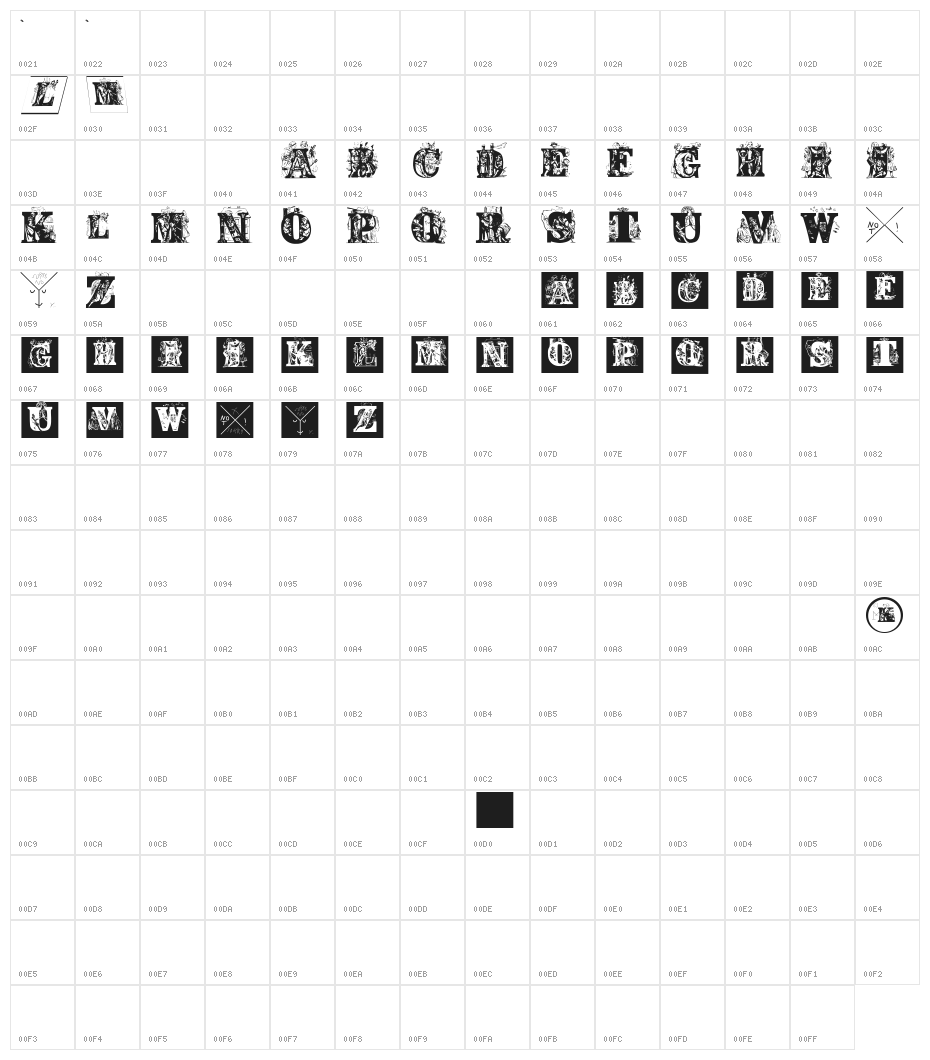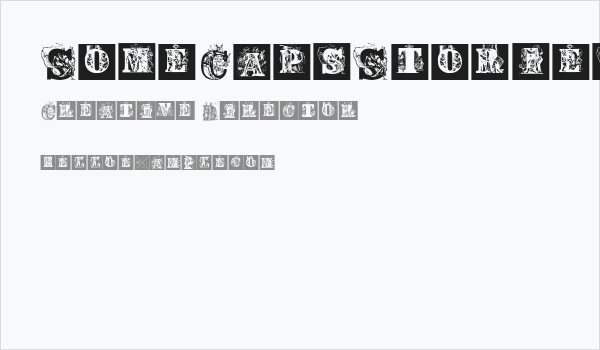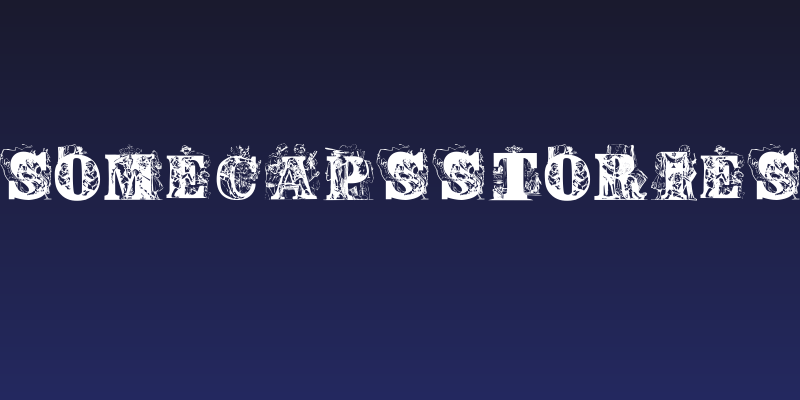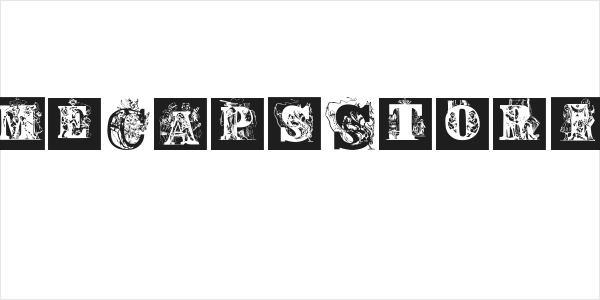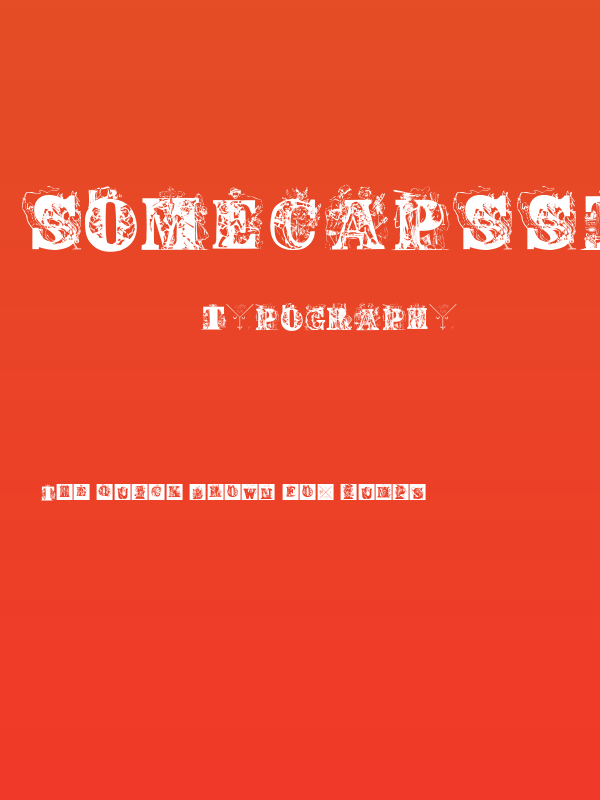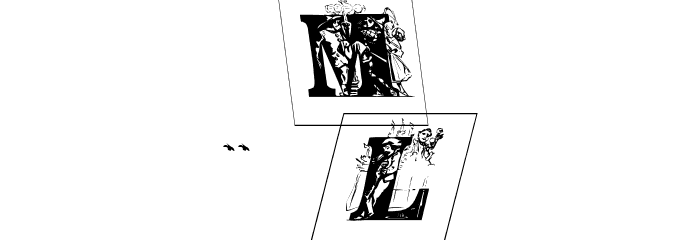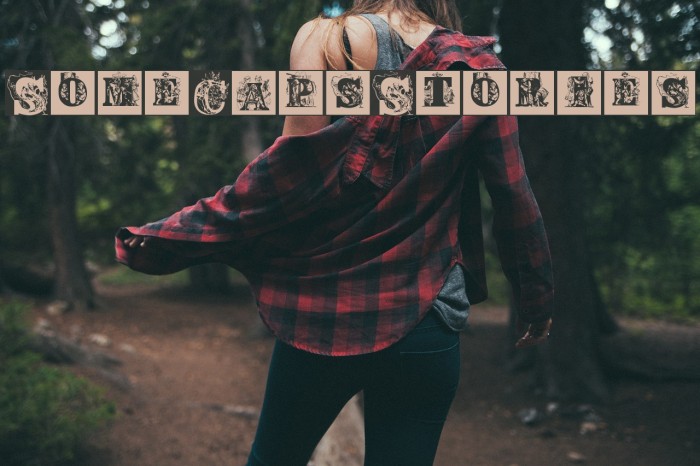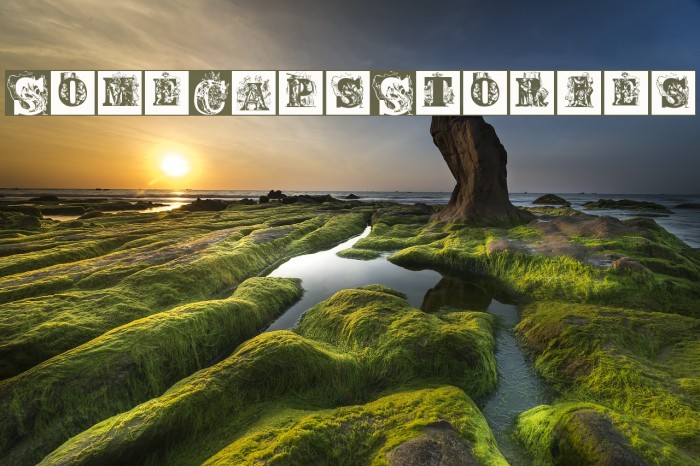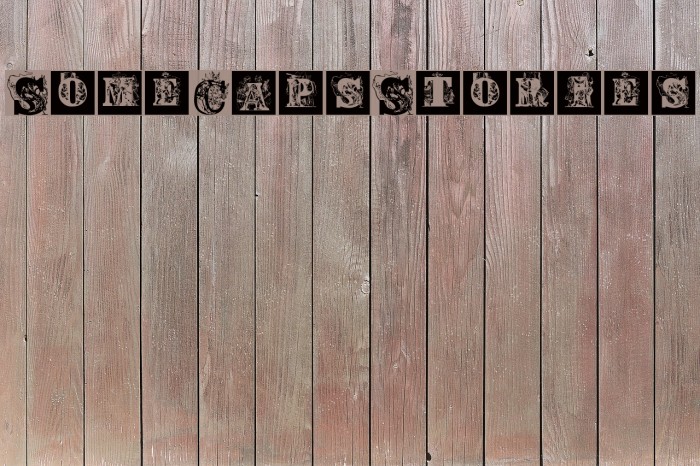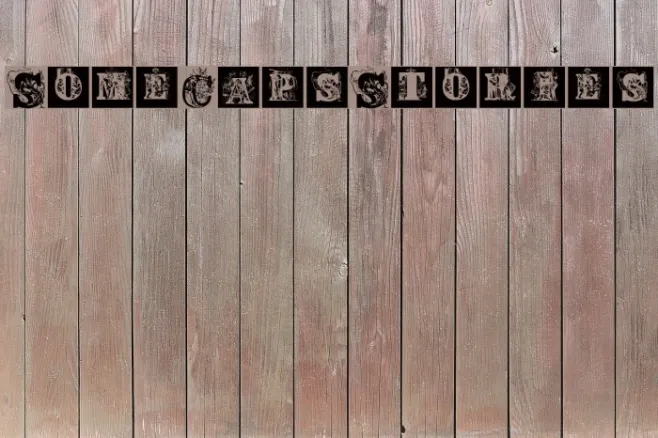
SomeCapsStories Font
SomeCapsStories Description
This font is a highly decorative and artistic typeface, featuring intricate illustrations within each letter. The uppercase letters are adorned with detailed scenes and figures, giving each character a unique and ornate appearance. The style is reminiscent of vintage storybook illustrations, with a strong emphasis on visual storytelling. The letters are bold and stand out due to their complex designs, making them suitable for eye-catching displays. The font does not include lowercase letters or numbers, focusing solely on uppercase characters. The artistic nature of the font makes it ideal for projects that require a touch of elegance and historical charm.
| Proposed Projects | Ideal for book covers, posters, and artistic projects that require a vintage or storybook aesthetic. |